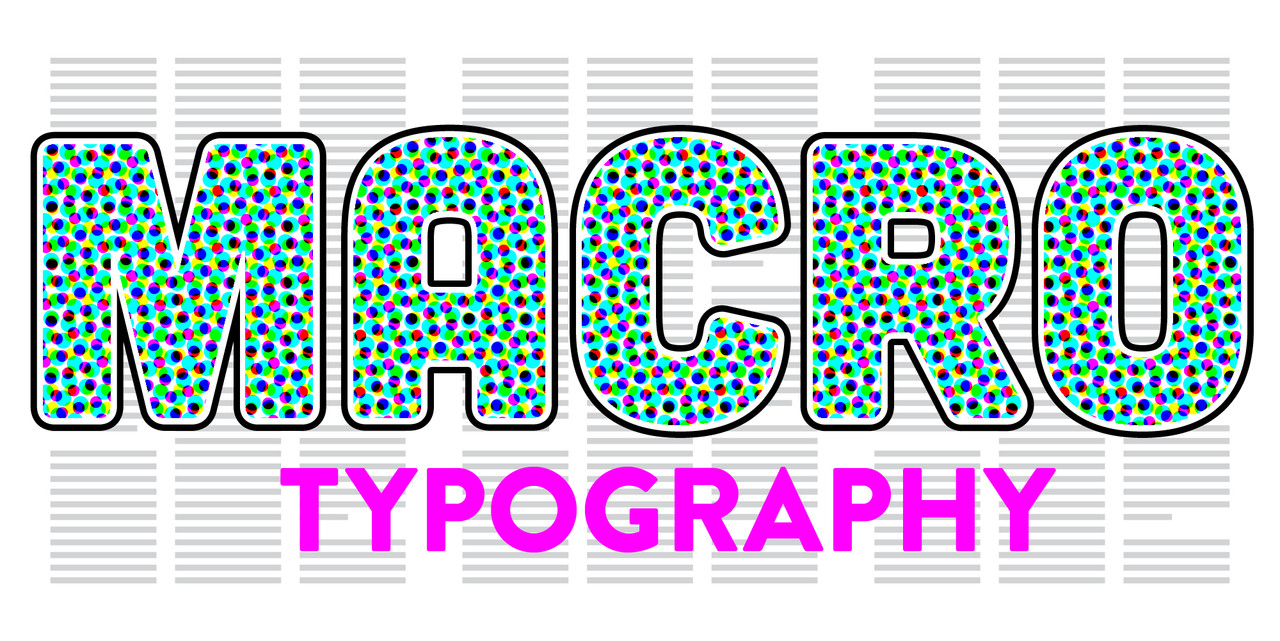
Macro Typography
with Samantha Troy
Explore the art of creating impactful headlines and expressive display typography
Building on foundational typography skills, this workshop explores how to choose, pair, and work with display type and text across print and digital media. You will learn to design expressive, effective headlines that communicate clearly while capturing attention.
We will discuss strategies for selecting typefaces that either harmonize with or contrast against body text. Through hands-on projects in Adobe Photoshop and Adobe Illustrator, you will create dynamic headline treatments using techniques such as layering, text effects, and custom letterforms. Throughout the workshop, we will balance creativity with clarity, ensuring that typographic treatments remain both visually engaging and cohesive within the overall design.